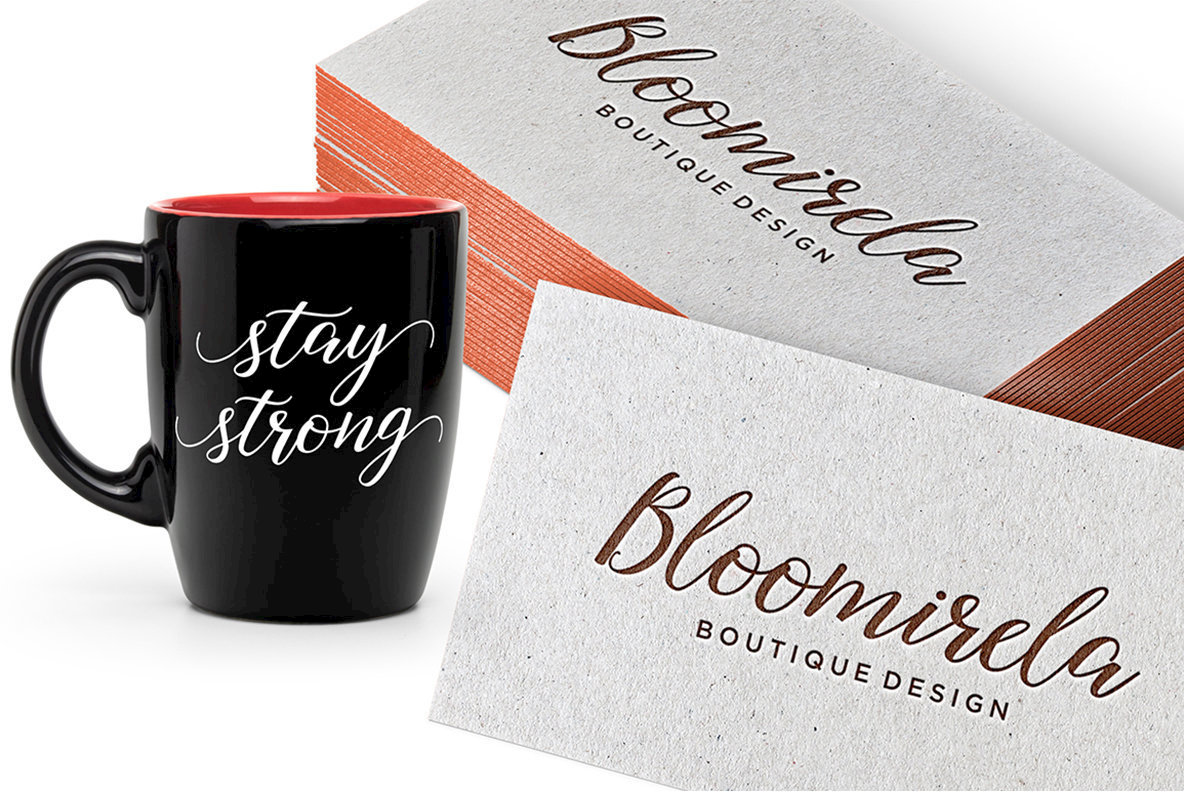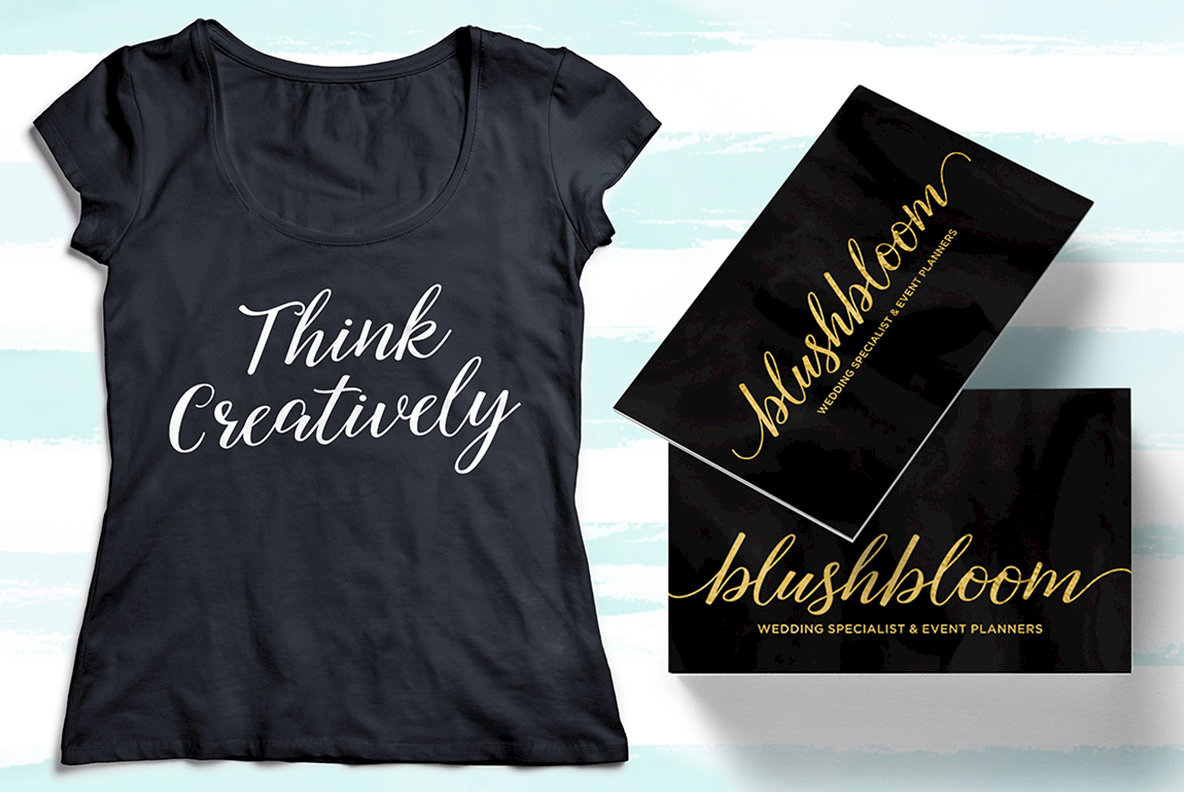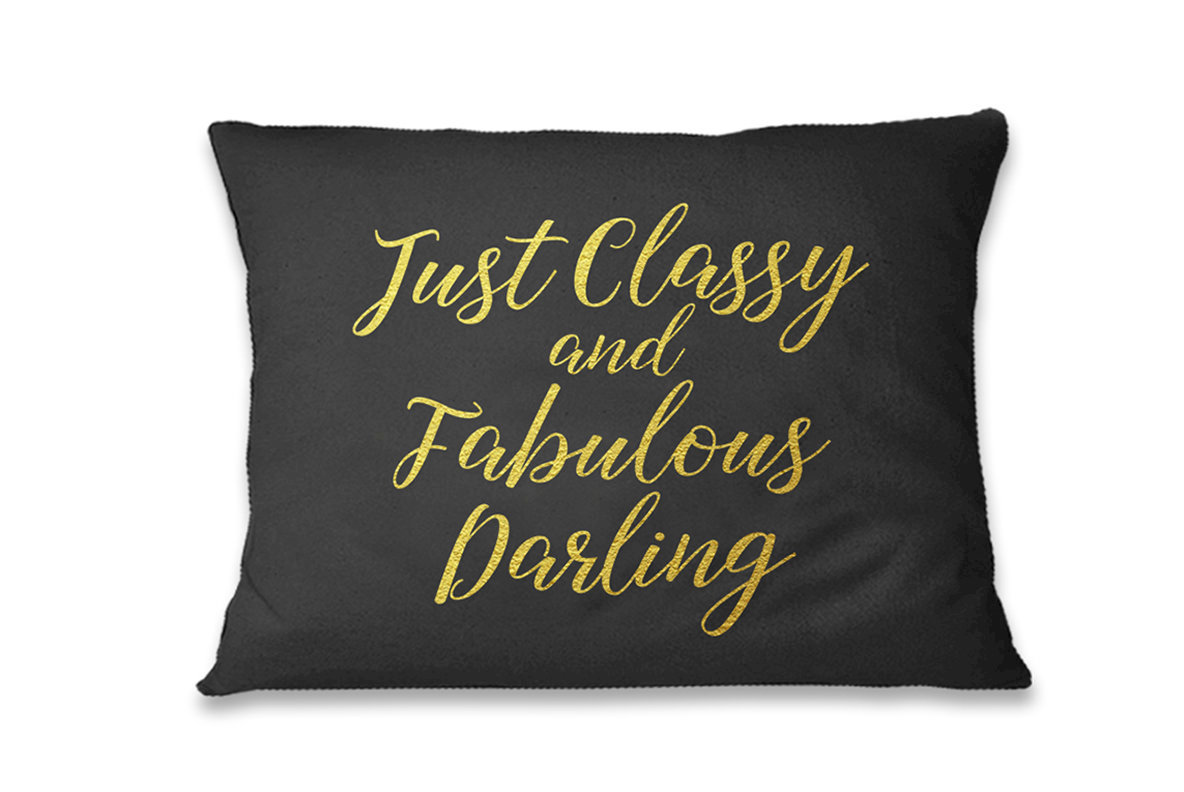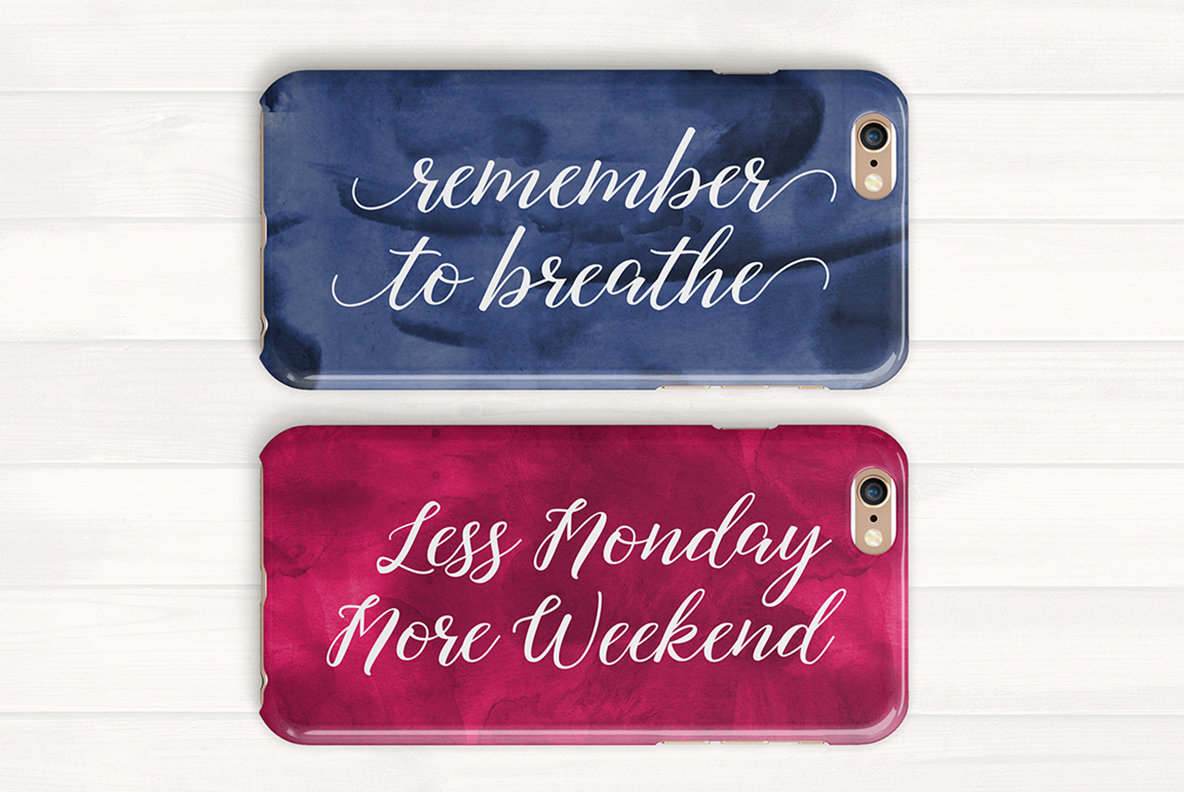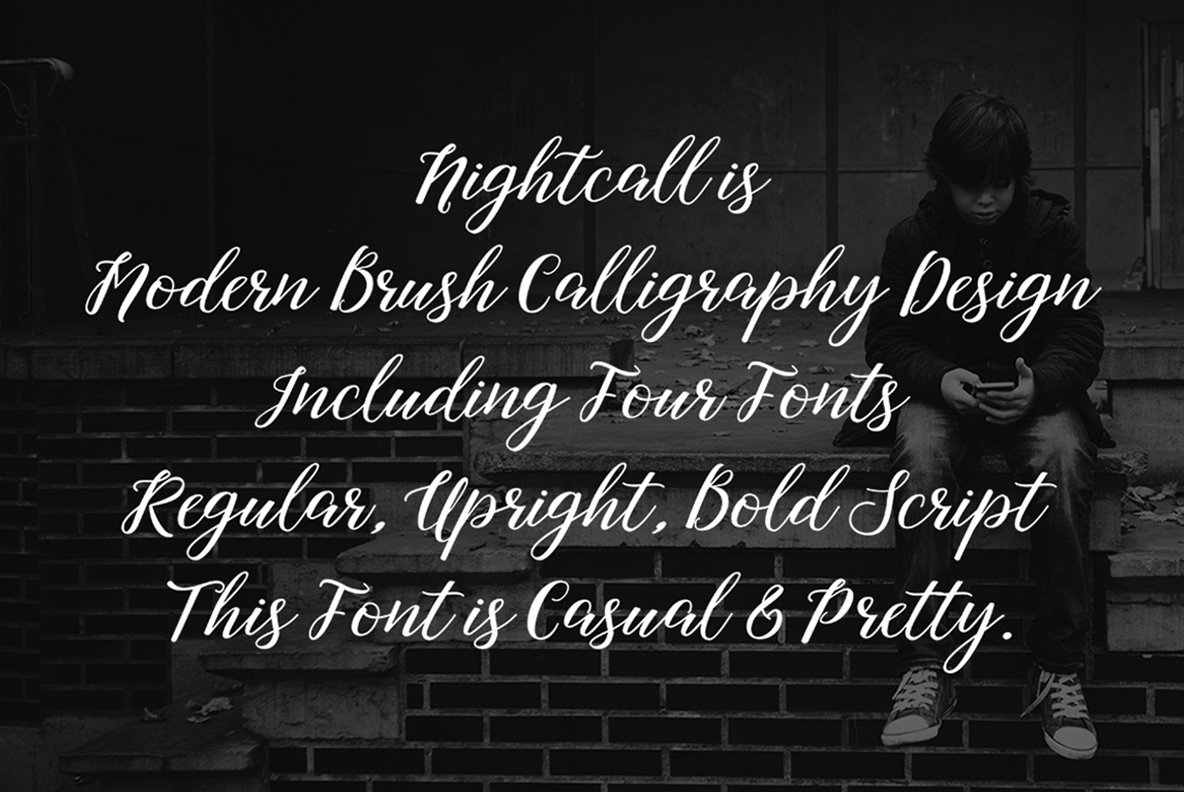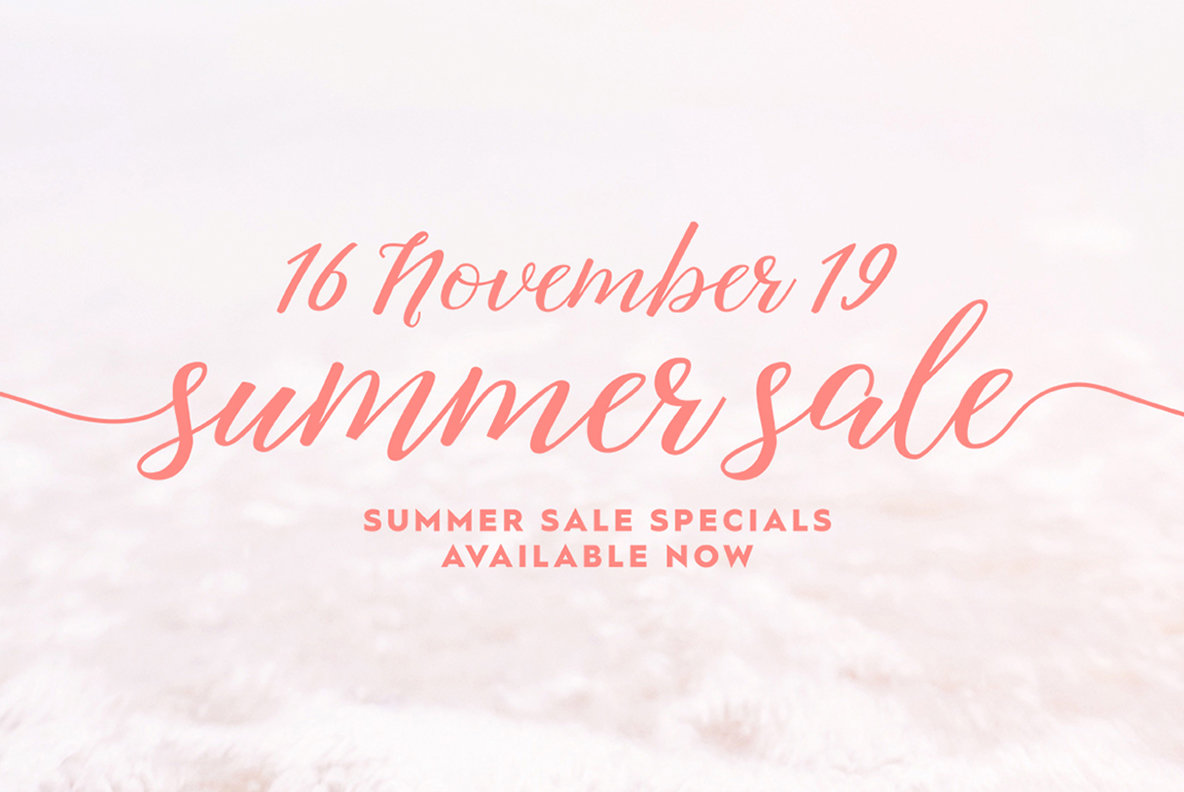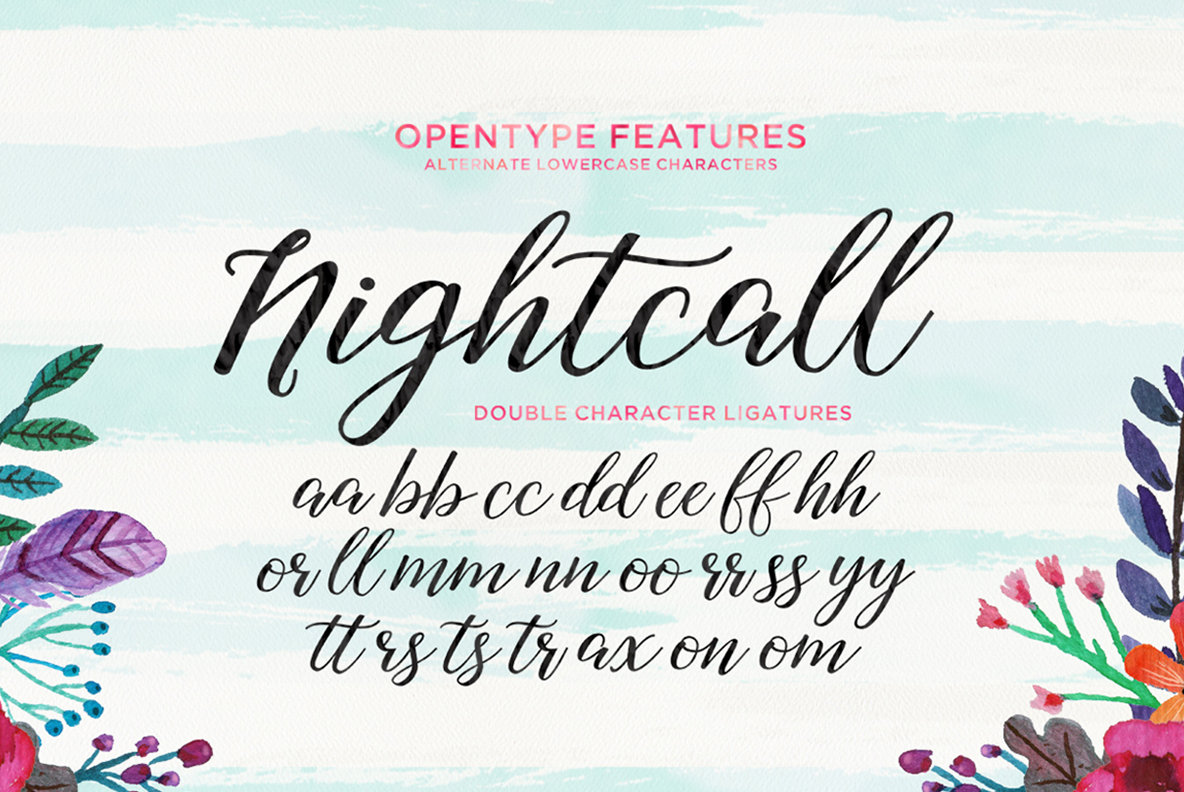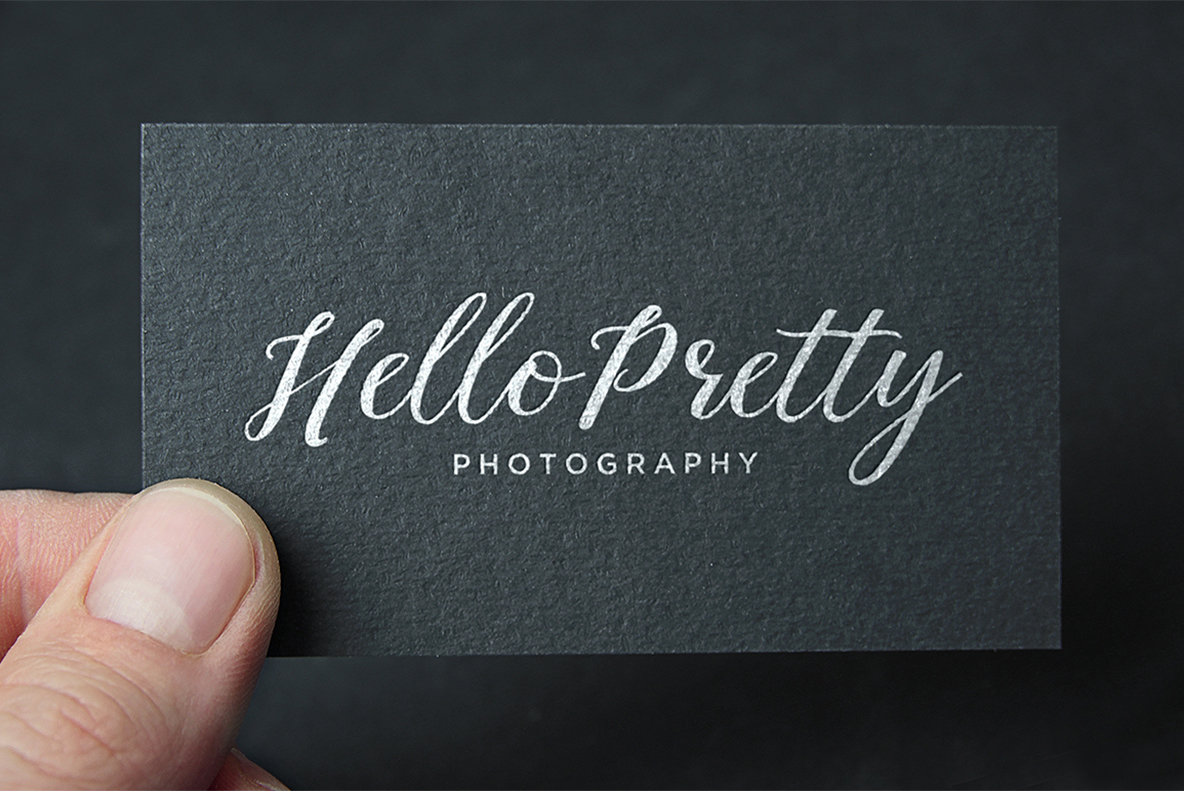
Nightcall Script Font
Nightcall Script by Akmal Yusar offers a sophisticated touch to any design project. With its casual and elegant flow, this modern calligraphy typeface includes Regular, Upright, and Bold styles. Perfect for creating beautiful typography, it caters to a variety of needs—from logos and product packaging to wedding invitations and branding materials. Features: Access alternative characters effortlessly using popular design software like Adobe Illustrator and CorelDraw, or with basic tools like Character Map on Windows and Font Book on Mac. These tools ensure maximum utility for all users, regardless of preferred software.Nightcall Script: A Modern Calligraphy Font